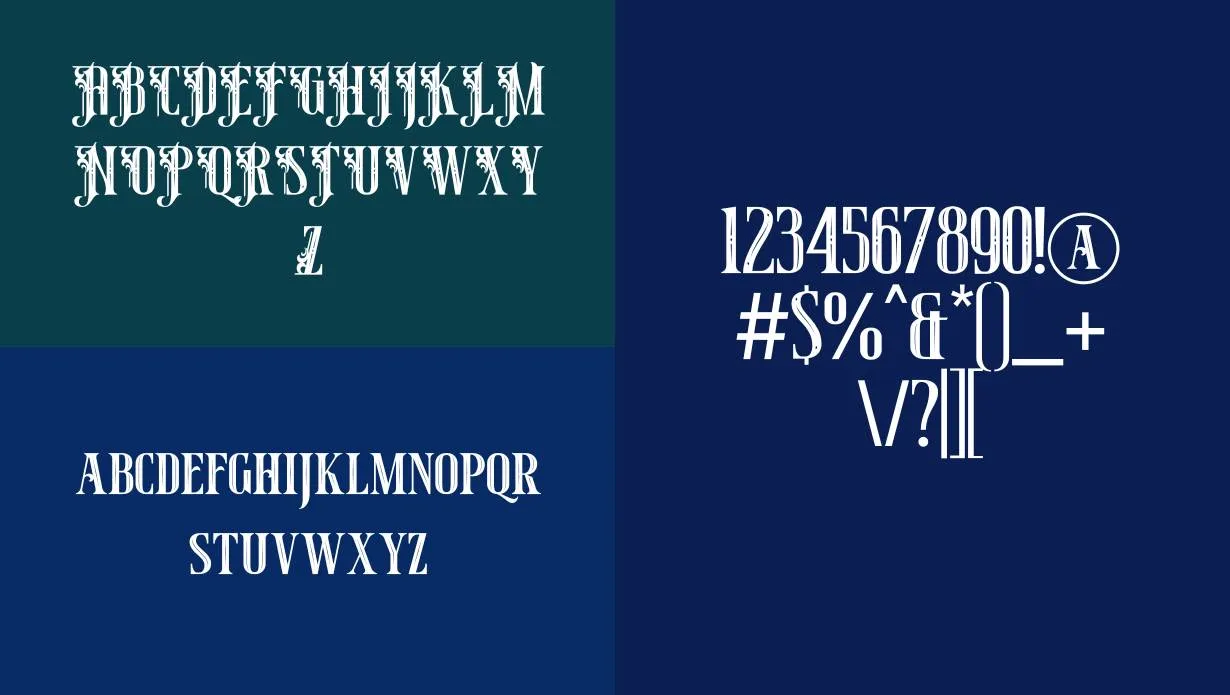
Lewis Classic font carries a sense of heritage and tradition, often used in Adobe CSS for vintage-inspired designs, book covers, or elegant branding. Its timeless appearance lends an air of classic sophistication to various projects..
| Name | Lewis Classic Font |
| Designer | Thierry Fétiveau |